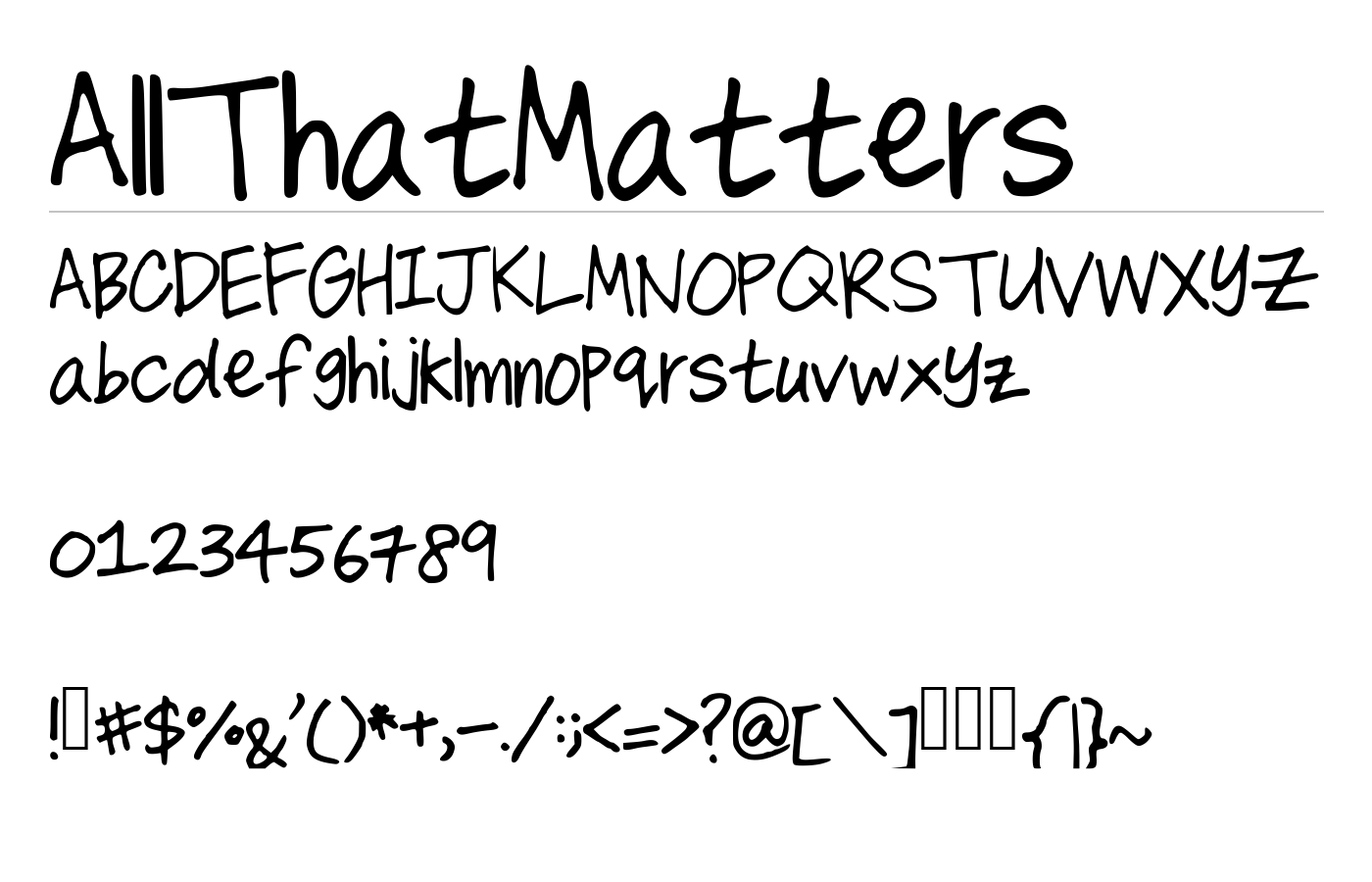
AllThatMatters is a casual, handwritten sans serif font with a friendly and approachable style. Its irregular strokes and playful letterforms give it a relaxed, informal feel, making it perfect for projects that want to convey warmth and personality. This font works well for creative branding, social media graphics, and informal headlines where a personal touch is desired.
AllThatMatters Font
About AllThatMatters Font